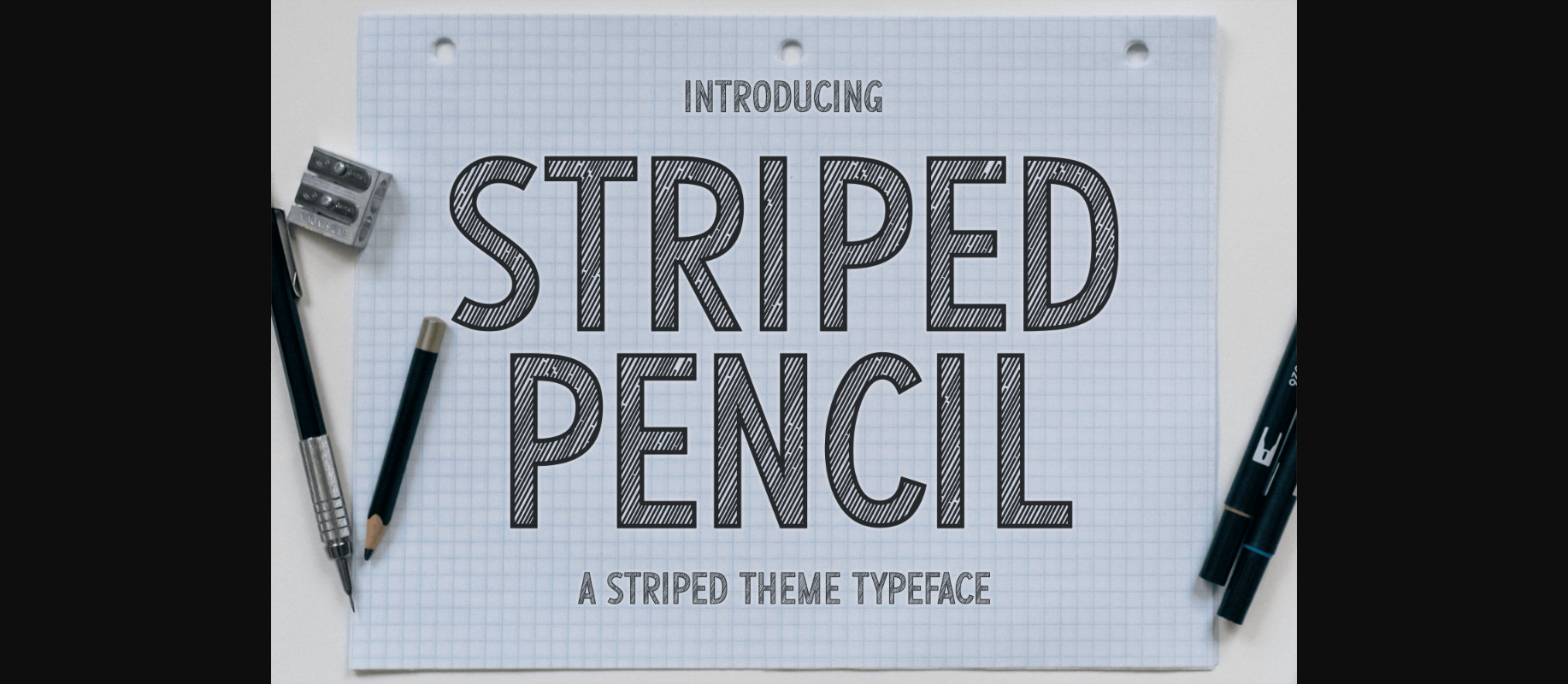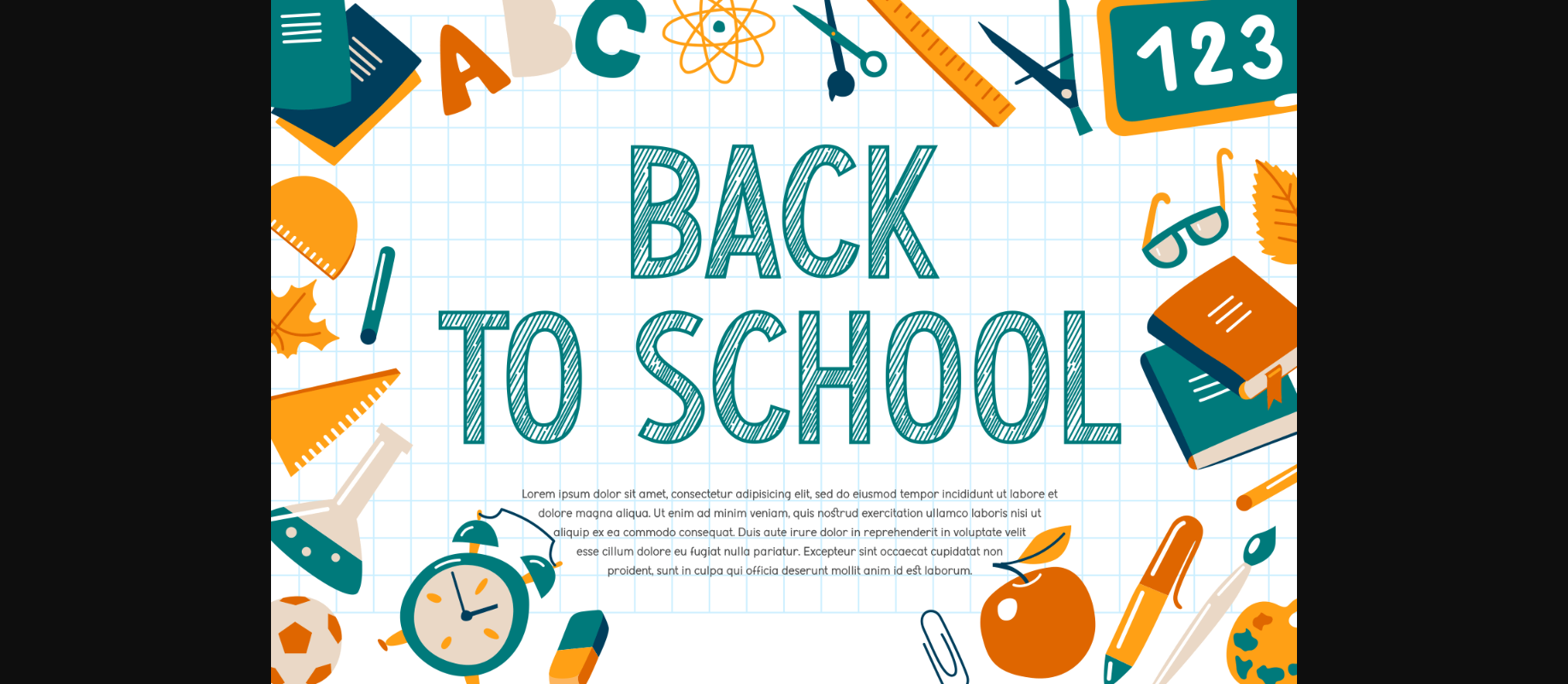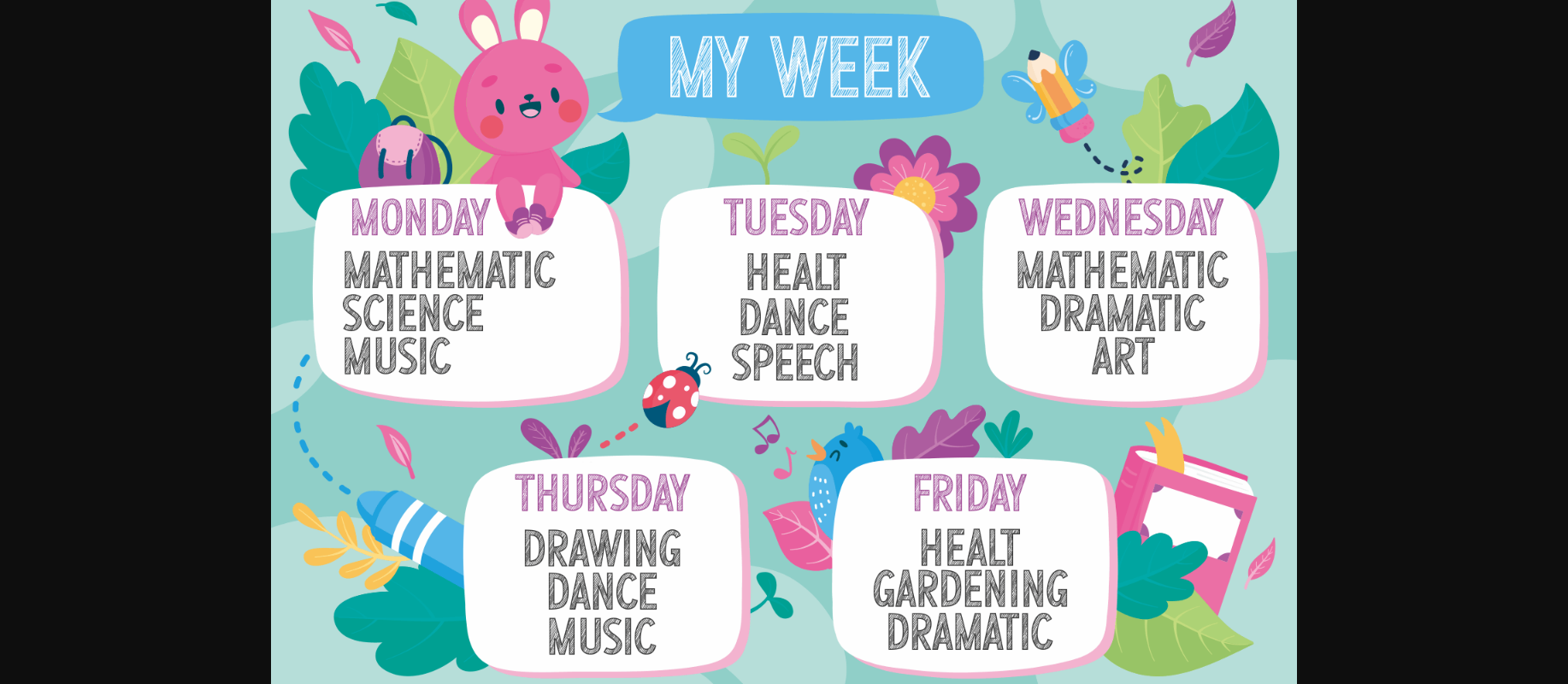
Striped Pencil Font
About Striped Pencil Font
Striped Pencil is a playful decorative font. Each character is embellished with diagonal stripes to give it more personality. Use it for your next creative projects such as cards, branding initiatives, paper crafts, posters, and more.